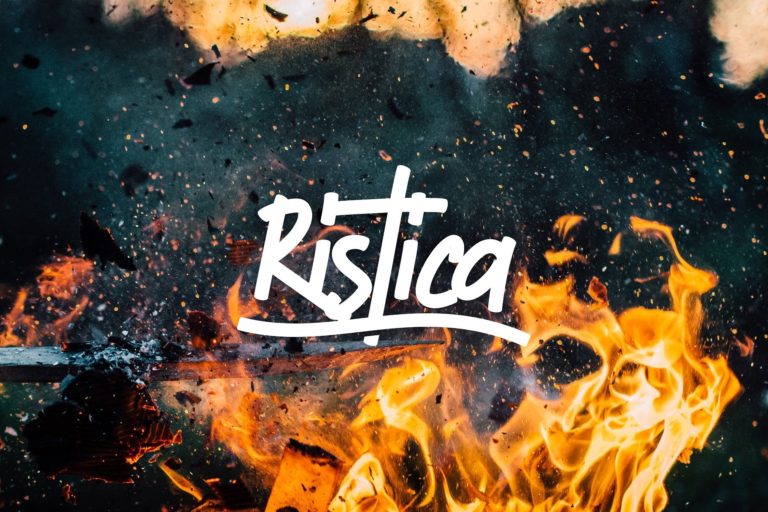
Ristica Script Font
Hello friend. A new fresh handmade calligraphy font. Introducing Ristica Font. This font is ideal for branding and decorate your any project, are perfect for wedding invitation or your blog. Also with their help, you can create a logo or beautiful frame for your home. Or just use for your small business, book covers, stationery, marketing, magazines and more.